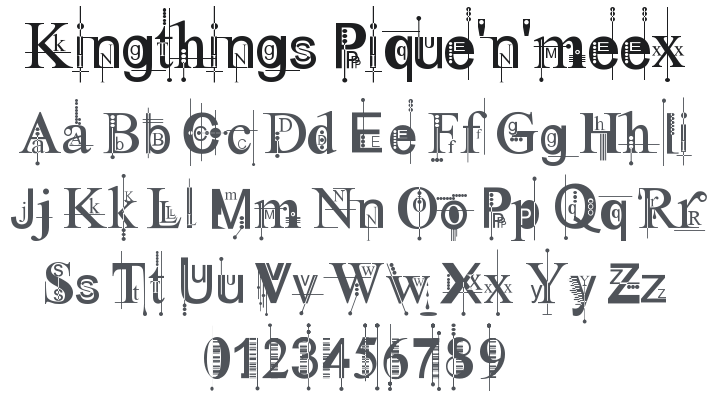
Kingthings Pique'n'meex Font
About Kingthings Pique'n'meex
Kingthings Pique'n'meex - A change is as good as a rest - fed up with detailed tweaking of foundation (coming soon) (probably days more like!) I had a funny five minutes and came up with this. I loathe Arial and Times for their ubiquity... of course the main problem is designer laziness - i can do that!